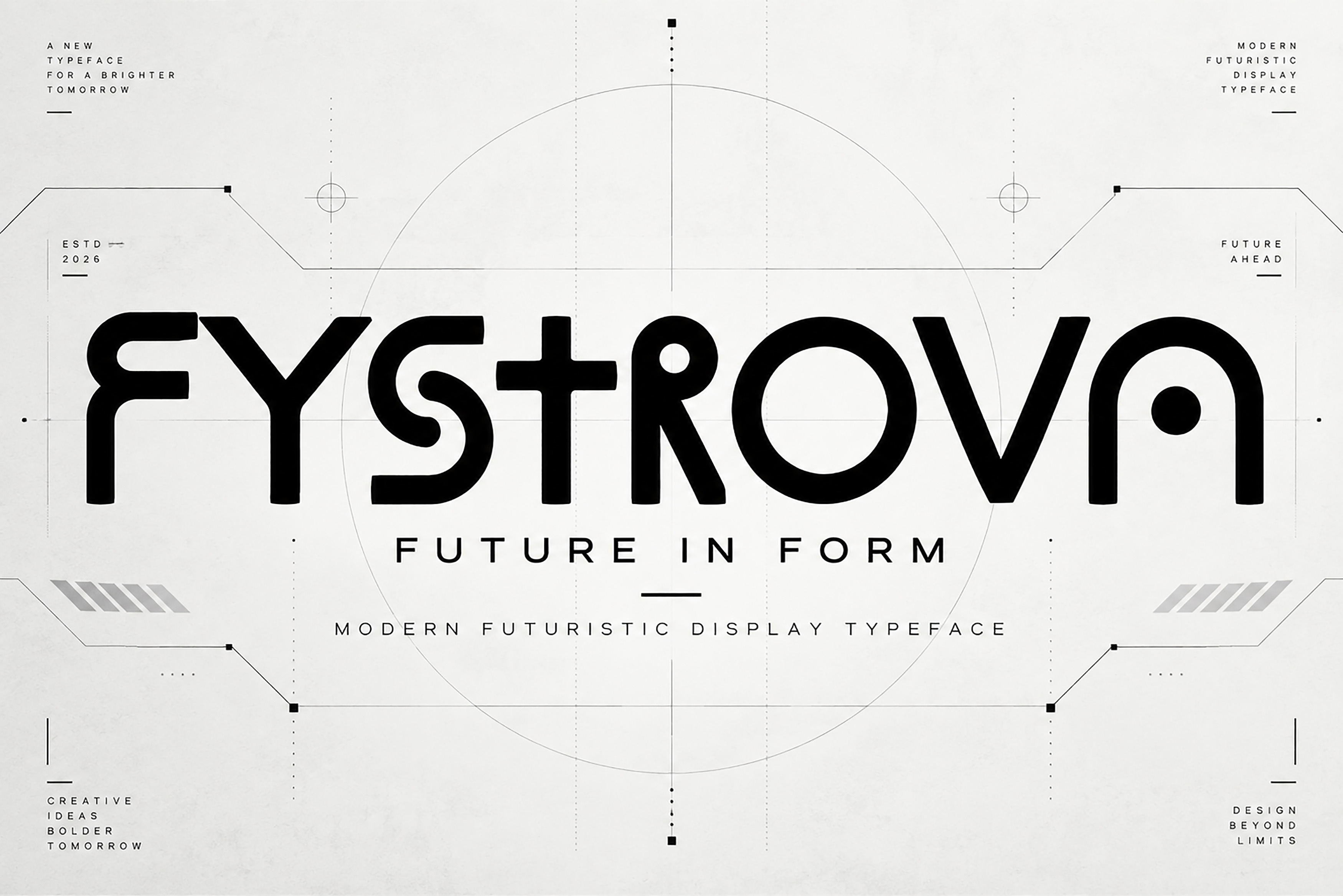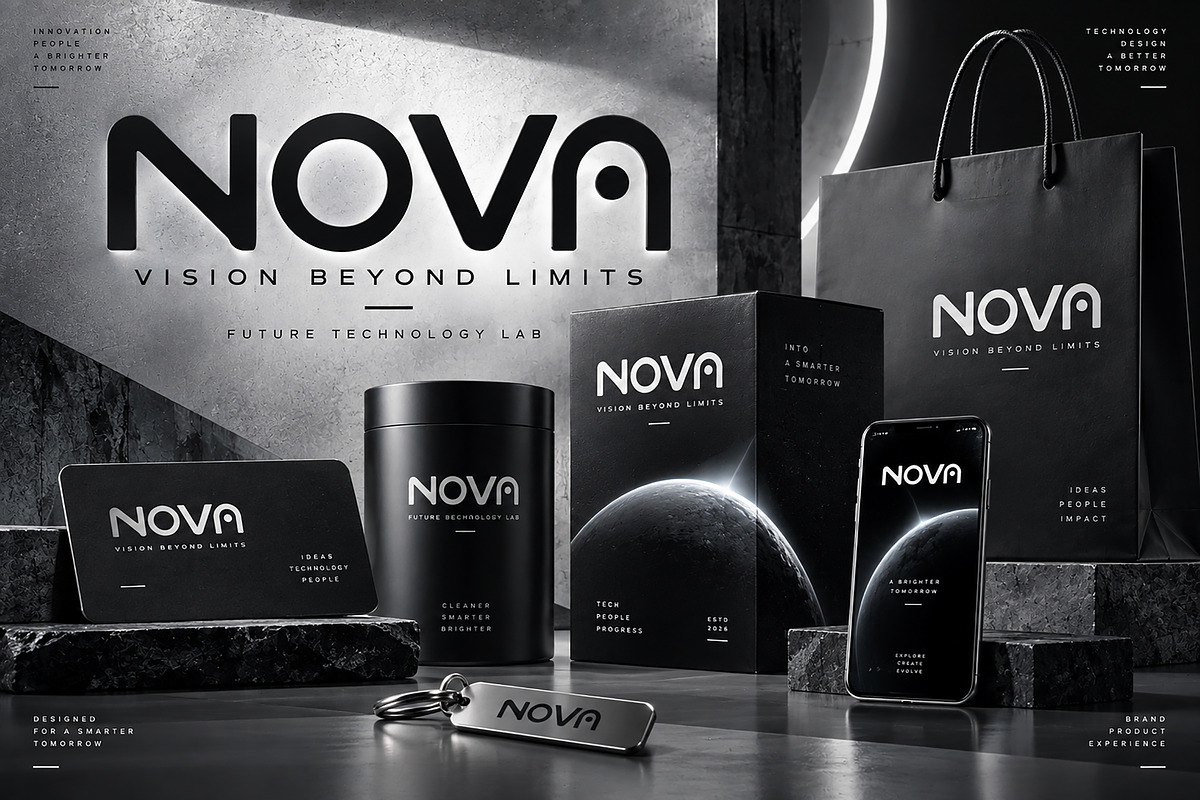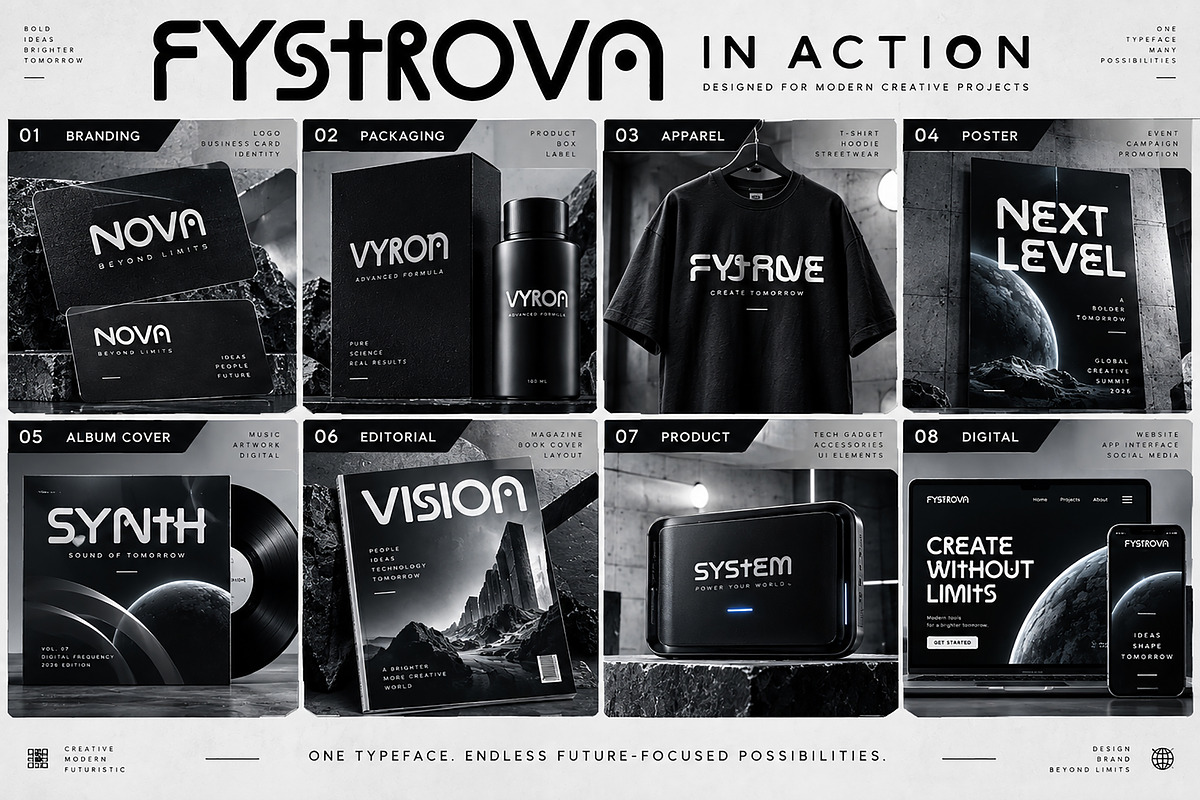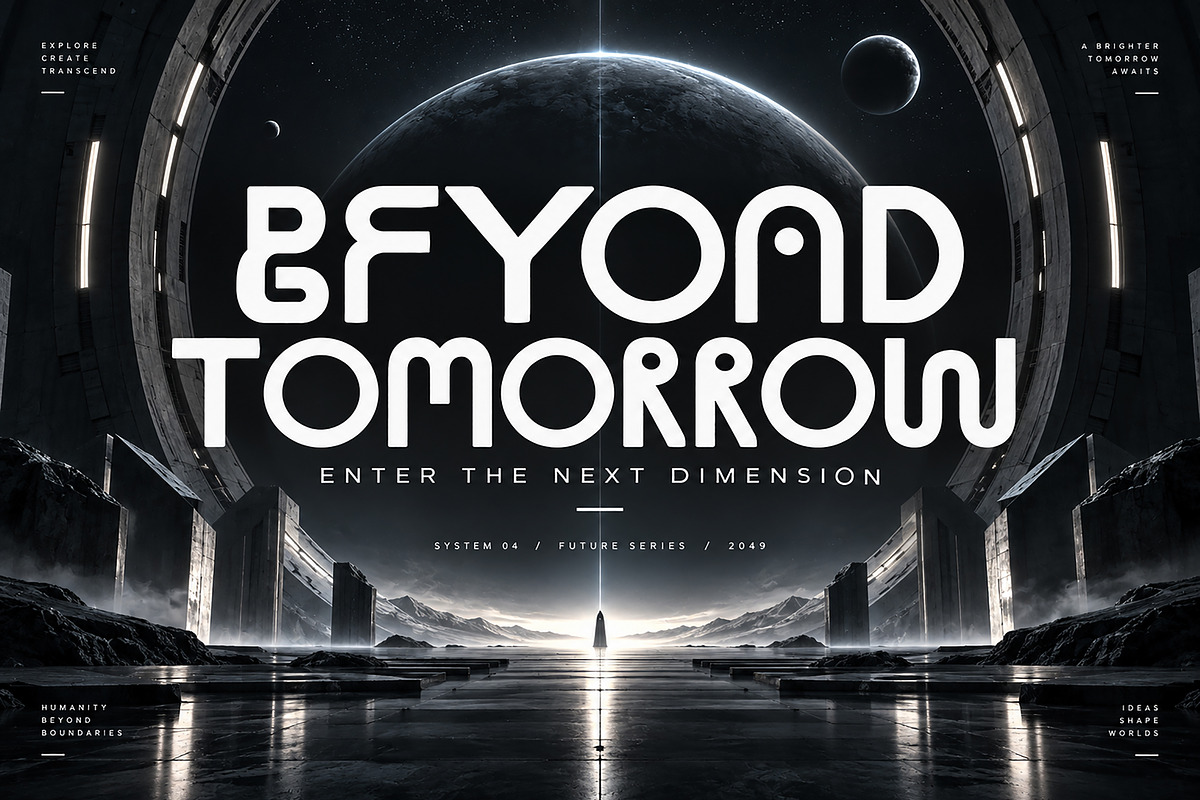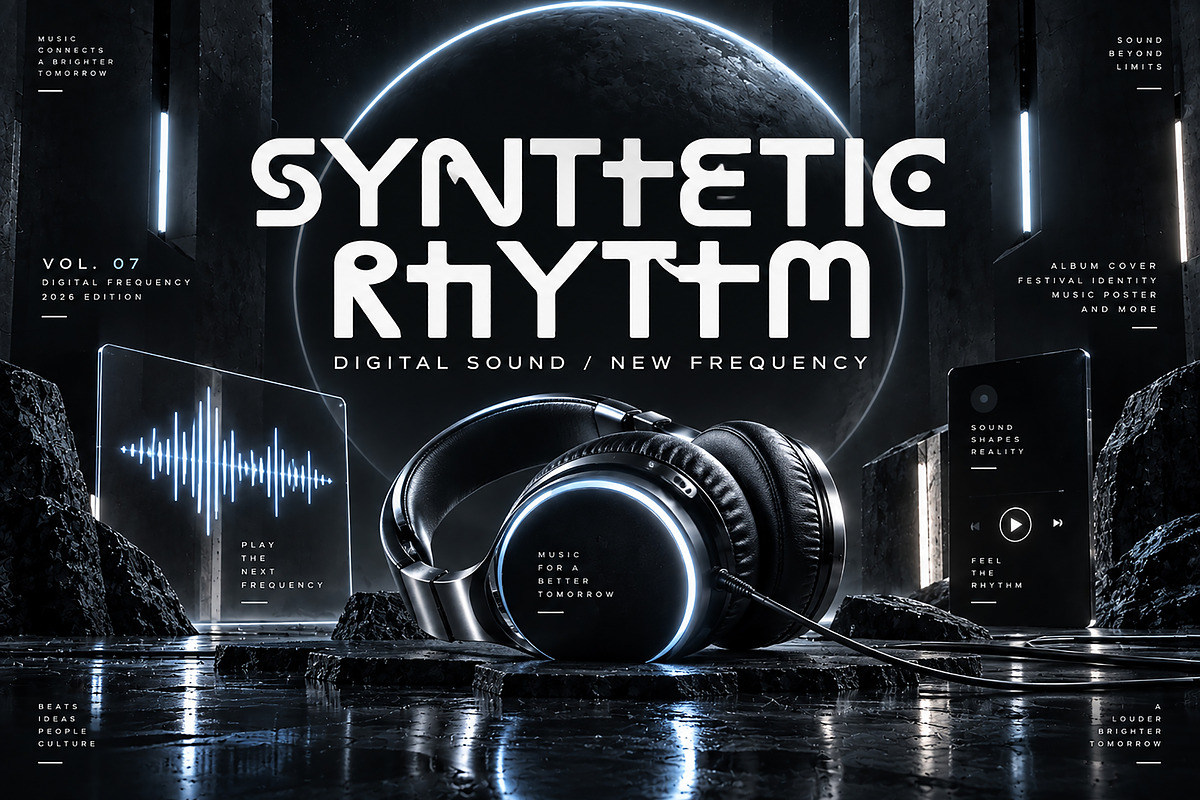
FYSTROVA — Futuristic Display Font
FYSTROVA is a bold futuristic display typeface designed for modern, high-impact creative projects. Its geometric construction, distinctive letterforms, rounded shapes, and contemporary sci-fi aesthetic give designs a strong visual identity while maintaining a clean and professional appearance.
Perfect for designers looking to create a futuristic, technological, experimental, or modern visual style, FYSTROVA works beautifully across a wide range of display applications.
Futuristic Logos & Branding
Technology & Startup Branding
Sci-Fi Posters
Gaming Graphics
Music & Album Covers
Event Posters
Apparel & Streetwear
Editorial & Magazine Design
Headlines & Advertising
Digital Interfaces
Creative Campaigns
Titles & Display Typography
FYSTROVA is especially effective when used at larger sizes, where its unique geometric details and unconventional forms can become the focal point of the design.
Font Name: FYSTROVA
Style: Futuristic / Geometric / Modern Display
Type: Display Typeface
Create bold visual identities and futuristic designs with FYSTROVA.